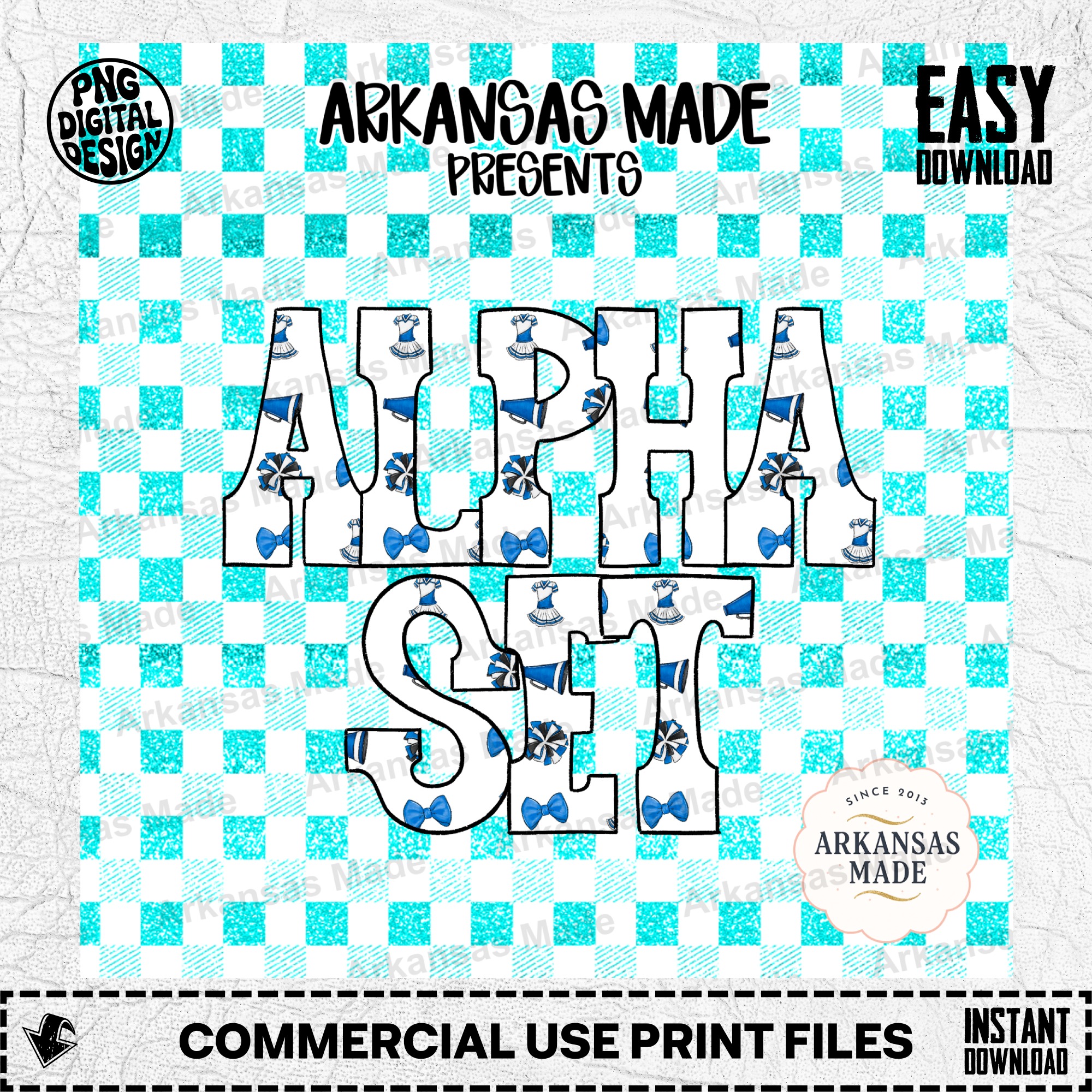
Get ready to create with these vibrant Cheerleader Alpha PNGs! Perfect for school spirit, team crafts, and personalized gifts for cheer enthusiasts. These digital letters feature dynamic cheerleading elements like megaphones, pom-poms, and bows in bold blue and white, making them ideal for spirited projects. Designed for cheerleaders, dedicated cheer moms, and coaches, this alphabet set is fantastic for crafting custom apparel, banners, or unique end-of-season presents. Celebrate your team or show off your individual spirit with these versatile Alpha PNGs.